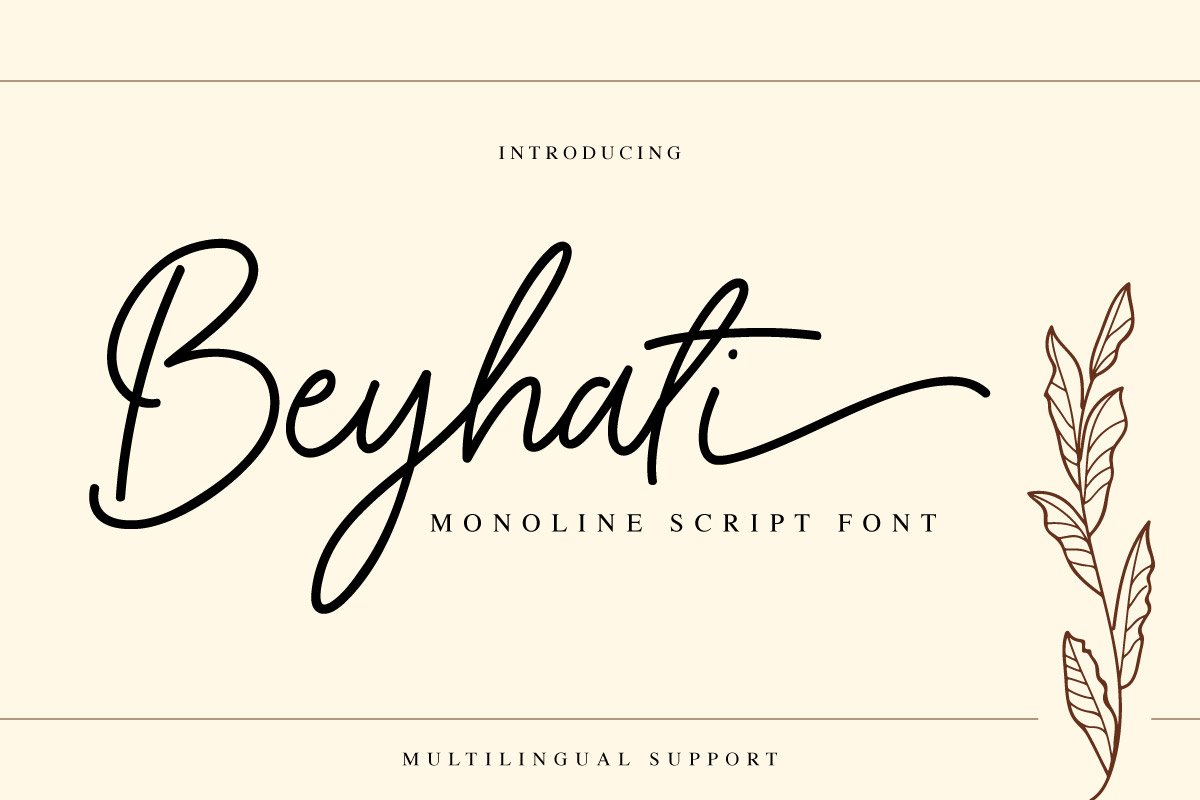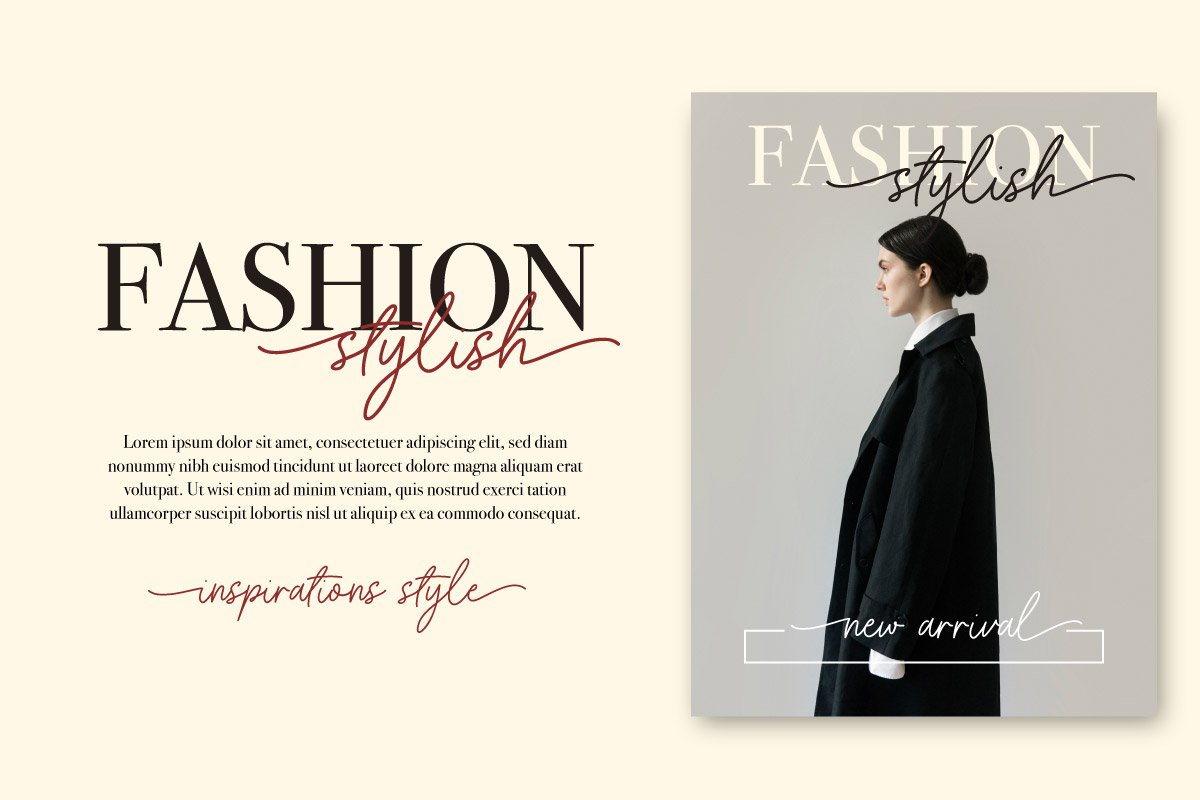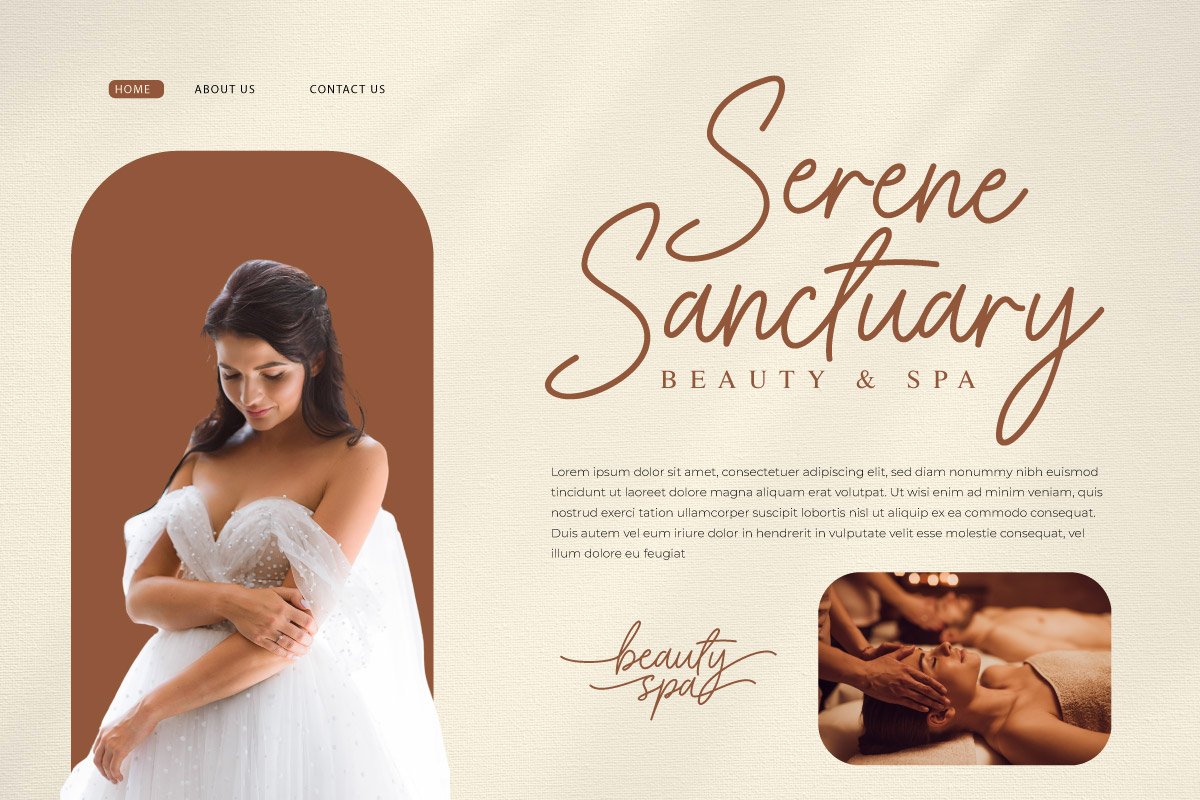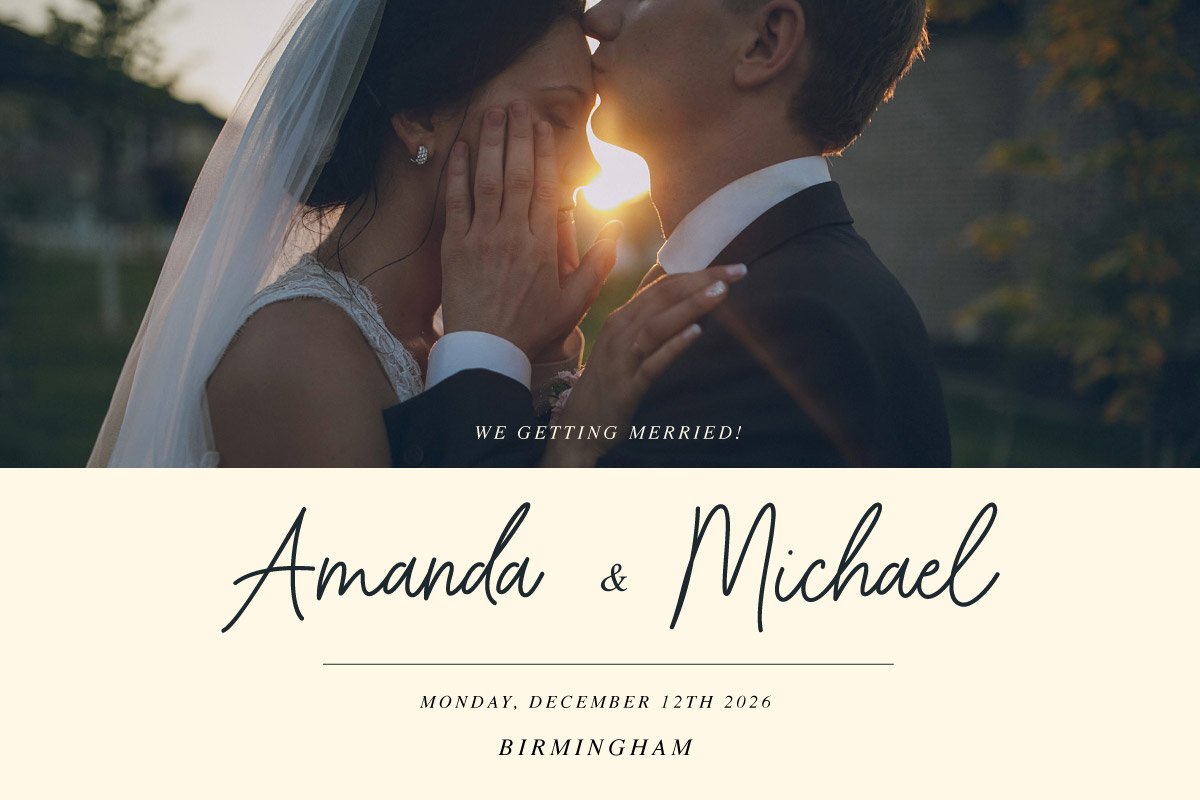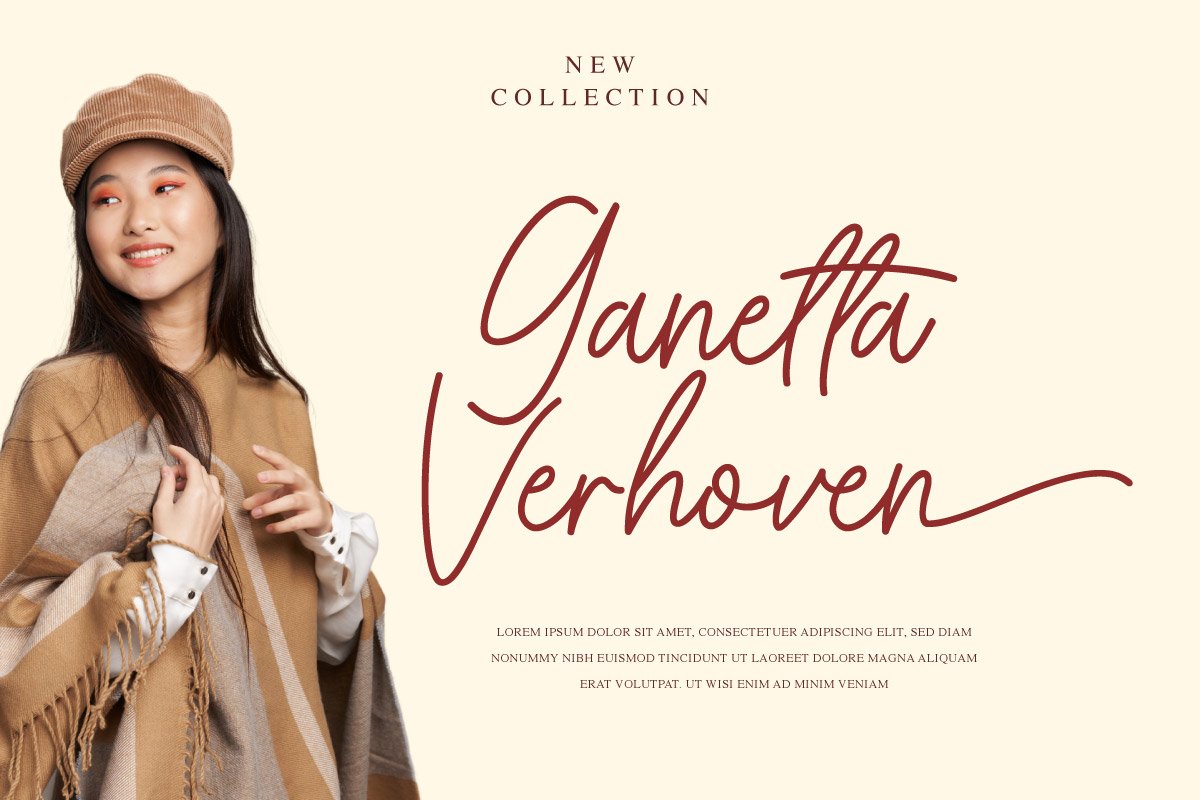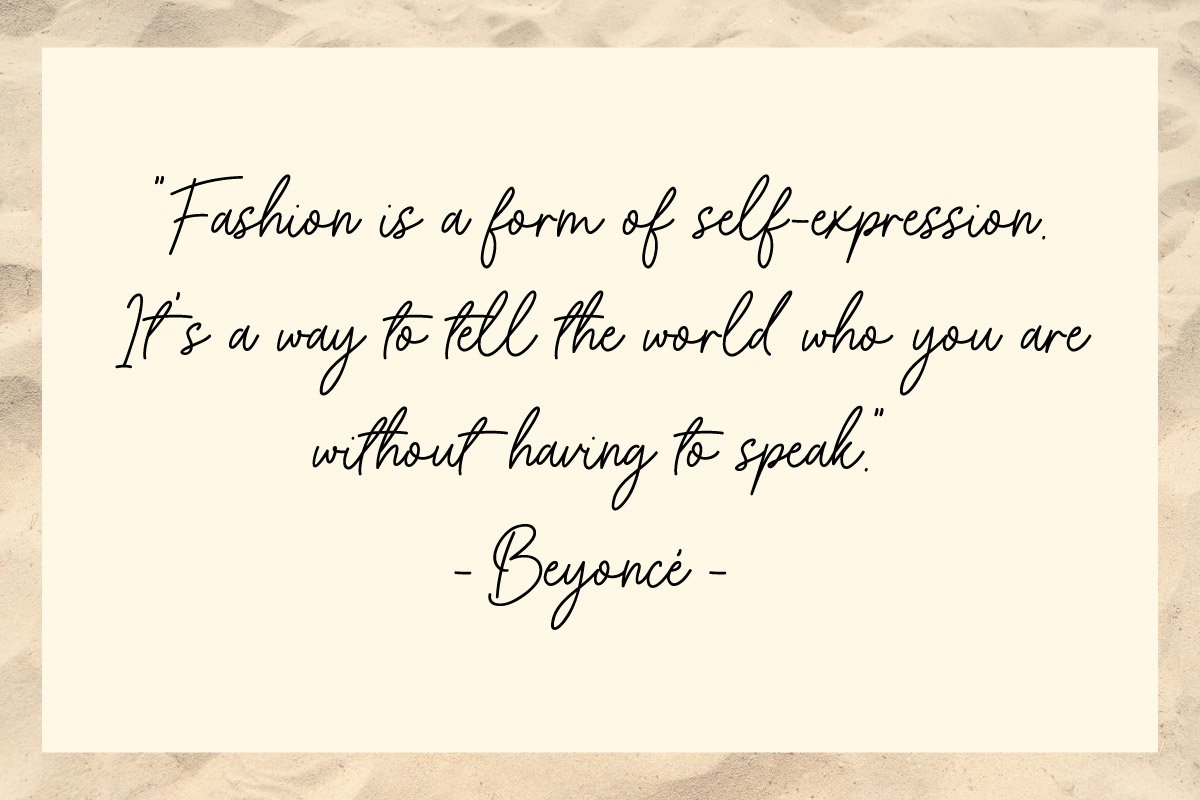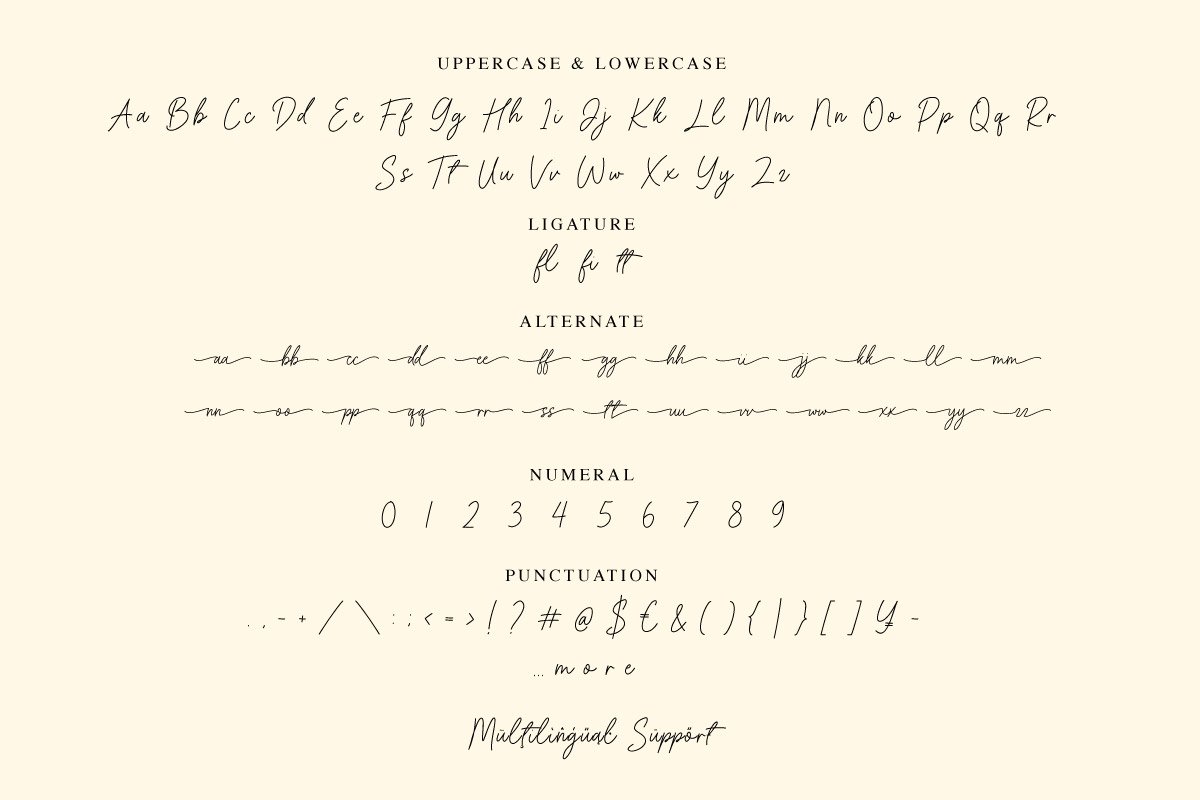
- Beyhati – Monoline Script Font
Beyhati is a stylish monoline script font designed to elevate your creative projects. Perfect for branding, logos, invitations, and social media designs, its smooth strokes add elegance and warmth to your work. Whether you’re crafting minimalist wedding stationery or creating standout product packaging, Beyhati brings charm and sophistication to every design.